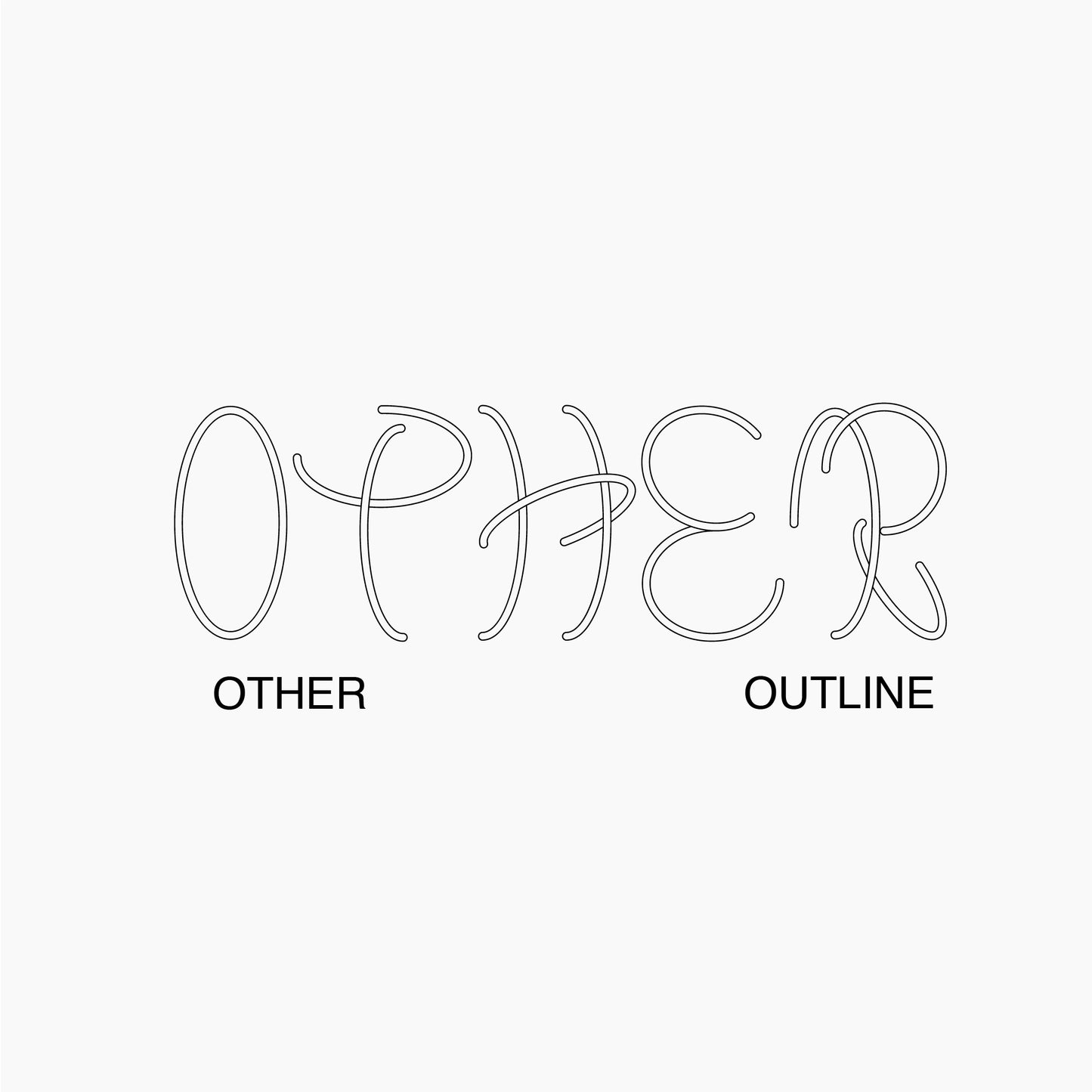
Other
Harry Wright
Other is a highly experimental typeface that pushes the boundaries of design by focusing on form and consistency. Through its spectrum of seven distinct styles, each offers a unique visual journey from pixelated renditions to traditional forms.
Each letter and number is crafted from circles, resulting in a cohesive hand-drawn, yet still refined aesthetic.